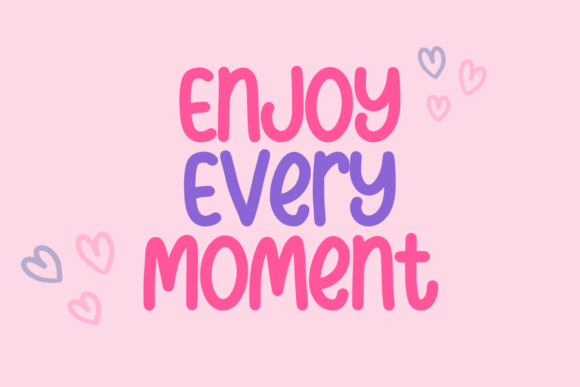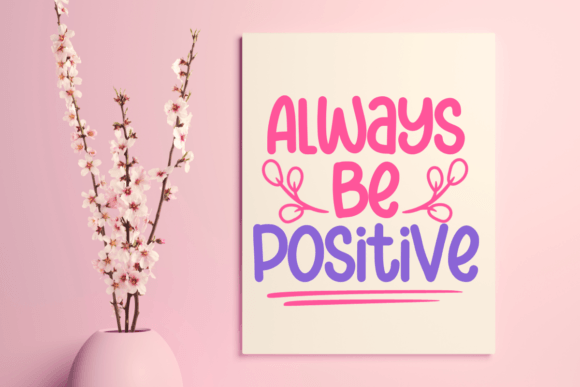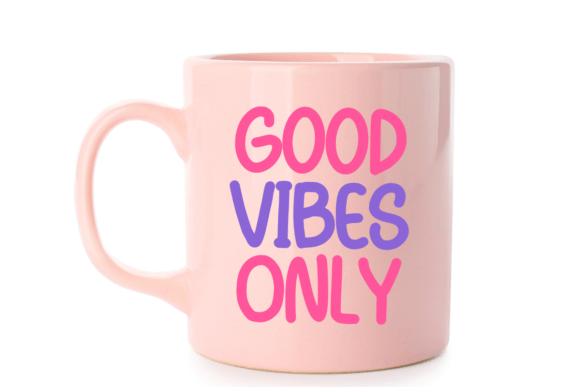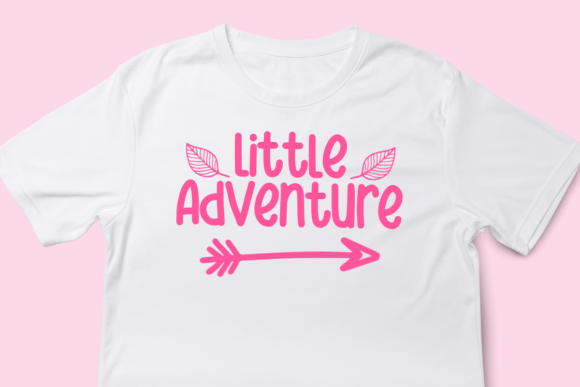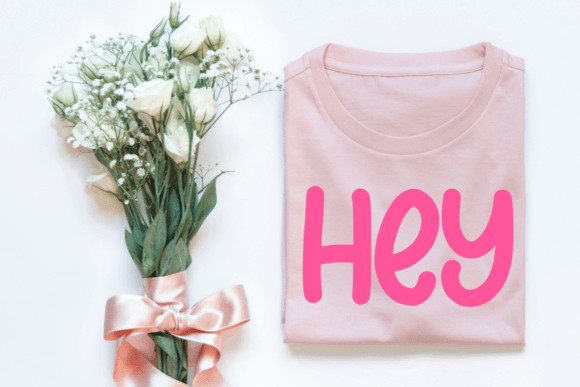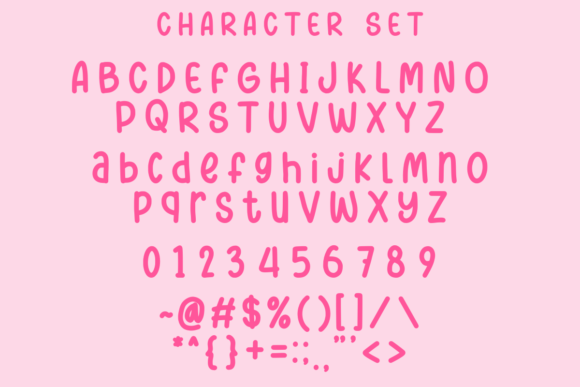
Introducing Happy Pinky Font: The Sweet and Friendly Handwritten Font
Are you tired of using the same old fonts in your designs? Do you want to add a touch of sweetness and friendliness to your projects? Look no further than Happy Pinky Font! This beautiful handwritten font is perfect for designers and crafters who want to add a personal touch to their work.
What is Happy Pinky Font?
Happy Pinky Font is a sweet and friendly handwritten font that is designed to make your designs stand out. Its natural and unique style makes it incredibly fitting to a large pool of designs, from invitations and greeting cards to logos and branding materials. The font’s playful and whimsical feel is sure to capture the attention of your audience and leave a lasting impression.
Features of Happy Pinky Font
- Handwritten with love: Happy Pinky Font is carefully crafted with a personal touch, giving it a warm and friendly feel.
- Natural and unique style: The font’s unique style makes it perfect for designs that require a touch of personality.
- Versatile: Happy Pinky Font can be used in a variety of designs, from digital projects to print materials.
- Easy to read: Despite its playful feel, Happy Pinky Font is easy to read, making it perfect for body text and headlines.
Uses of Happy Pinky Font
The possibilities are endless when it comes to using Happy Pinky Font. Here are a few ideas to get you started:
- Invitations and greeting cards: Add a personal touch to your invitations and greeting cards with Happy Pinky Font.
- Logos and branding materials: Use Happy Pinky Font to create a unique and memorable logo for your business or brand.
- Social media graphics: Add a touch of personality to your social media graphics with Happy Pinky Font.
- Digital art and illustrations: Use Happy Pinky Font to add text to your digital art and illustrations.
Tips for Using Happy Pinky Font
Here are a few tips for using Happy Pinky Font in your designs:
- Pair it with other fonts: Happy Pinky Font pairs well with other fonts, so don’t be afraid to experiment with different combinations.
- Use it in moderation: While Happy Pinky Font is perfect for headlines and titles, it may not be suitable for body text. Use it in moderation to create visual interest.
- Experiment with colors: Happy Pinky Font looks great in a variety of colors, so don’t be afraid to experiment with different color combinations.
In conclusion, Happy Pinky Font is a sweet and friendly handwritten font that is perfect for designers and crafters who want to add a personal touch to their work. Its natural and unique style makes it incredibly fitting to a large pool of designs, and its versatility makes it easy to use in a variety of projects. So why wait? Download Happy Pinky Font today and start creating beautiful designs that capture the hearts of your audience!
The only limit to what you can create with Happy Pinky Font is your imagination! So let your creativity run wild and see what amazing designs you can come up with. Whether you’re a seasoned designer or a crafty DIY enthusiast, Happy Pinky Font is sure to become a favorite in your font collection.